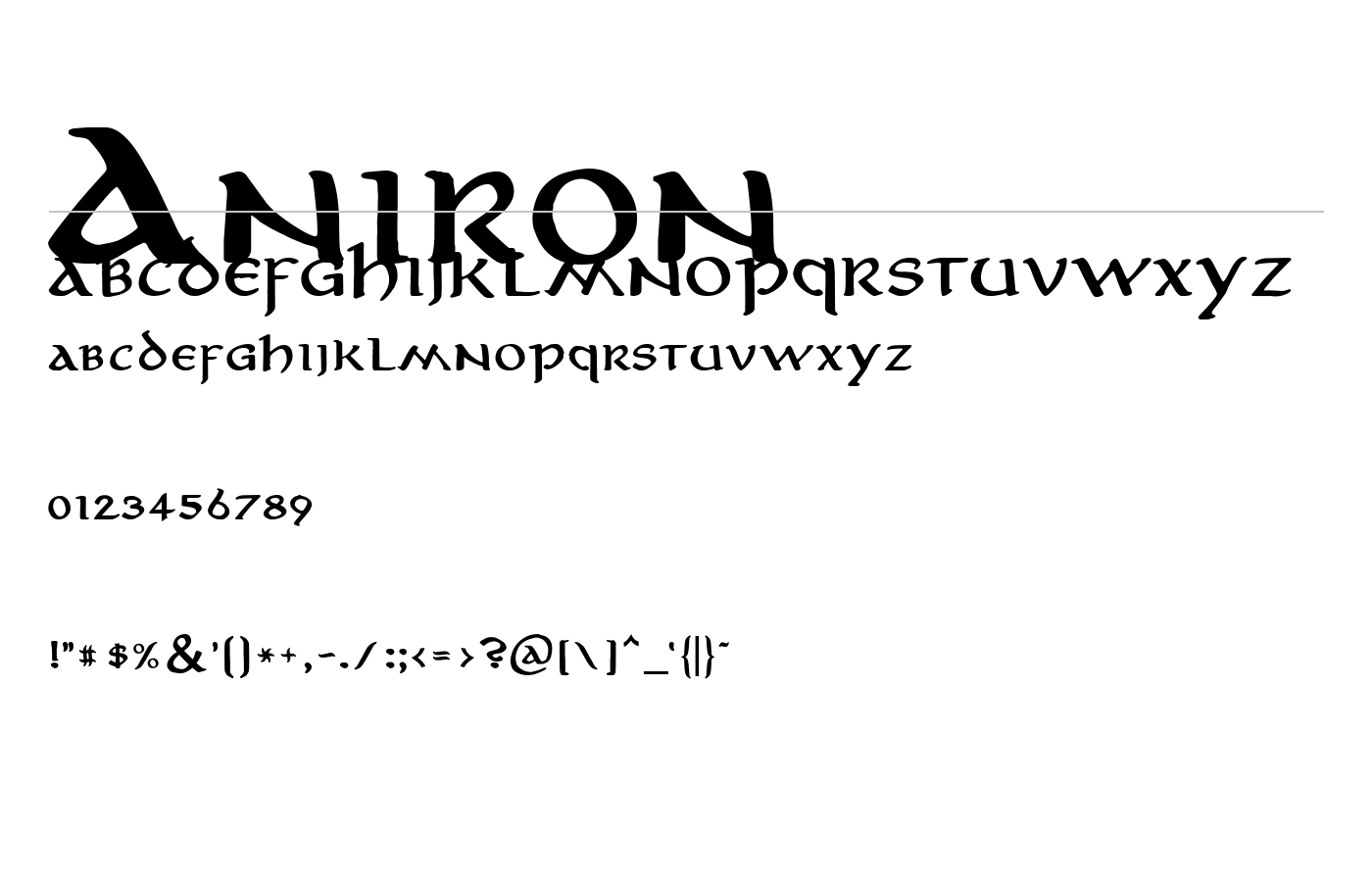
Aniron is a unique serif font with a medieval, calligraphic feel, featuring irregular strokes and pointed terminals that add character and a touch of antiquity. Its medium weight and moderate contrast create a dramatic yet readable style, ideal for fantasy-themed designs, book covers, or branding that seeks an old-world charm. This font works well in headlines and decorative uses where a distinctive, historical vibe is desired.
Aniron Font
About Aniron Font
| Font family | Aniron Font |
| Designer | Pete Klassen |